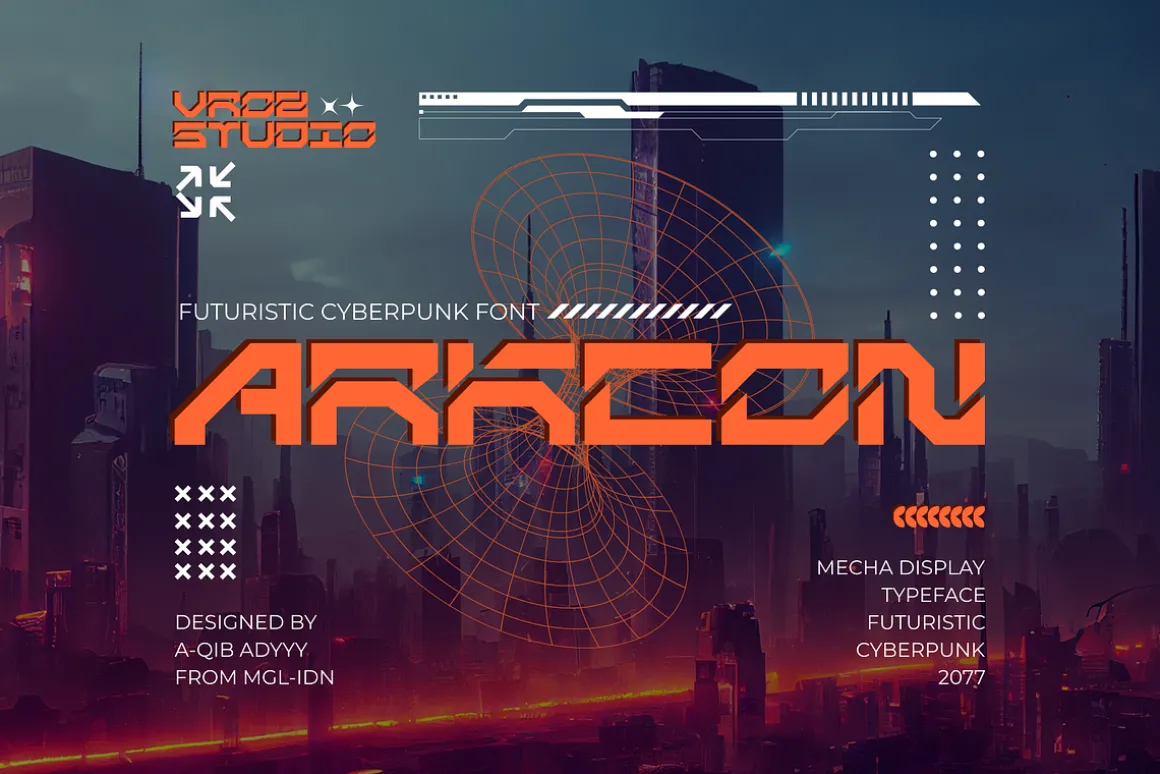
ARKCON is a futuristic cyberpunk display font. The typeface design will elevate your project, making it more powerful and inspiring. It’s perfect for headlines, billboards, magazines, websites, titles, posters, branding, thumbnails, t-shirt designs, streetwear designs, and creative logos, or any project in need of a futuristic touch. With this beautiful futuristic display font, you can truly make your project stand out from the rest. Check out the previews above to get some inspiration on how to use them